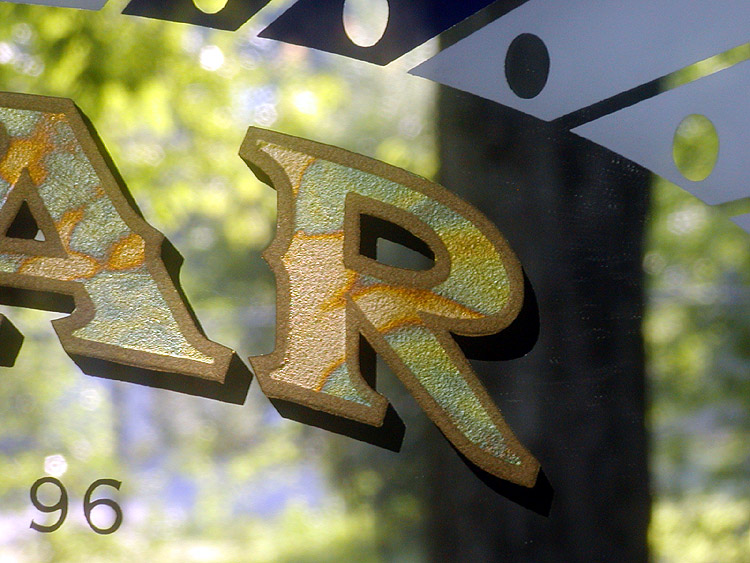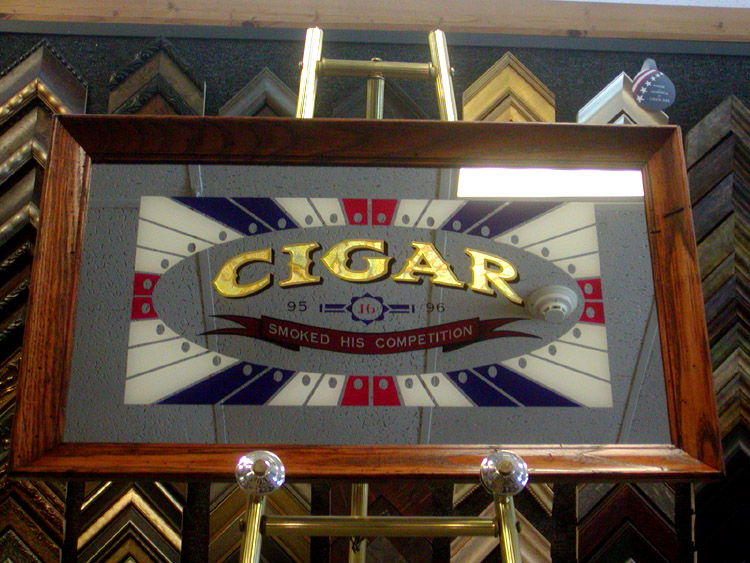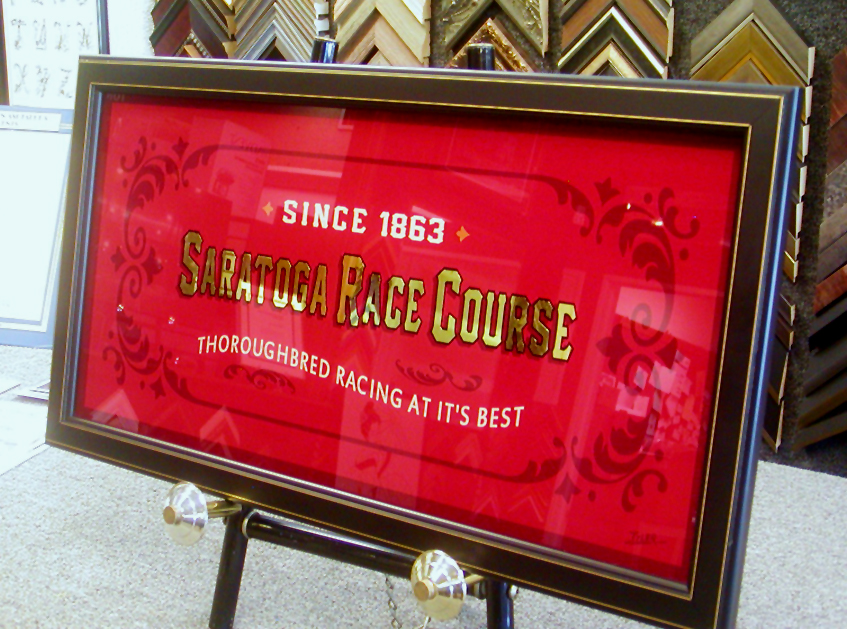
Here's a piece I made up... Cigar is a race horse stable colors were Red, White and Blue. The frame is from an old lobby show card display I picked up from the 30's I trimmed to fit.
Nice one Tyler. Stipple etched with variegated gold looks like to me. Is that right?
Nice shading job on the ribbon.
It's not acid etched. It's sandblasted, was deep etched on the outline. Then I use some garnet medium used in water jet cutters and frosted the letter face. Used XX pale gold powder on the outline and yes variegated on the face. Yeah I was happy with the ribbon when I flipped it around. The lettering has a nicer texture to it in real life but I tried my best to get a good photo.
And another. 23.5K with a little 22K here and there on the letters edge... it gives it a look of being embossed into the glass.